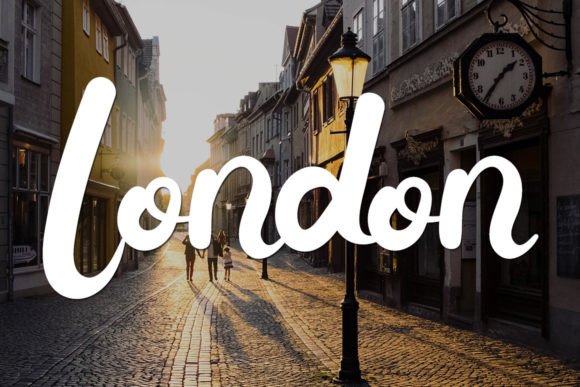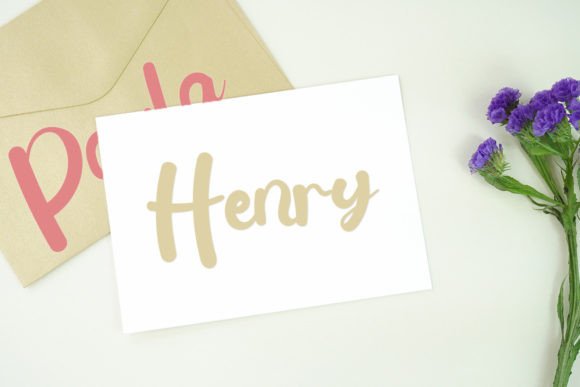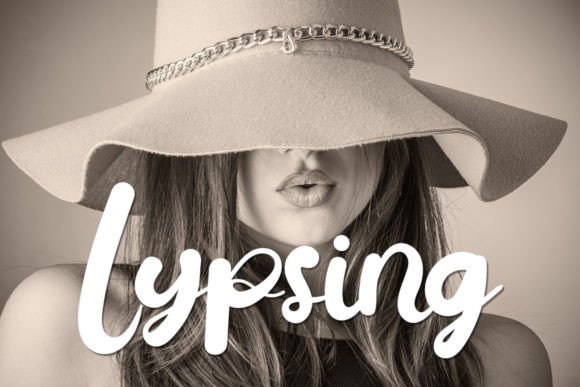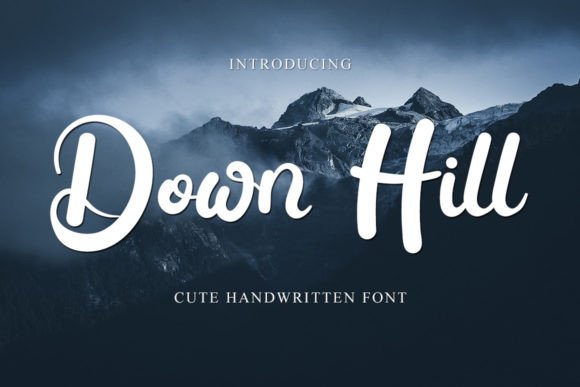
Discover the Charm of Down Hill Font: Elevate Your Designs with Elegance and Joy
Are you on the lookout for a font that embodies freshness, cleanliness, and elegance? Look no further than the Down Hill Font. This beautiful and sweet font is designed to bring a touch of joy and sophistication to your projects, whether they’re formal or informal. In this article, we’ll dive into the characteristics of Down Hill Font, explore its versatility, and discuss how it can elevate your designs to new heights.
The Essence of Down Hill Font
Down Hill Font is a masterpiece of typographic design, crafted to convey a sense of elegance and charm. Its clean lines and fresh appearance make it an ideal choice for designers and crafters seeking to add a touch of sophistication to their work. This font is not just a means of communication; it’s an expression of creativity and style.
One of the standout features of Down Hill Font is its incredible versatility. It can be used in a wide range of projects, from formal documents and presentations to informal designs such as posters, flyers, and social media graphics. Whether you’re working on a professional project or a personal craft, Down Hill Font is sure to make a lasting impression.
Adding a Joyful Touch to Your Designs
What sets Down Hill Font apart from other fonts is its ability to add an incredibly joyful touch to your designs. Its sweet and elegant appearance can instantly elevate the mood of your project, making it more engaging and appealing to your audience. Whether you’re designing for a client or working on a personal project, Down Hill Font is sure to bring a smile to people’s faces.
Down Hill Font is a dream come true for designers and crafters. Its clean and elegant appearance makes it perfect for a wide range of applications, including:
- Logos and branding: Create a lasting impression with a custom logo that exudes elegance and sophistication.
- Posters and flyers: Grab attention with a bold and eye-catching design that showcases your message.
- Social media graphics: Elevate your social media presence with stunning graphics that reflect your brand’s personality.
- Stationery and invitations: Add a touch of elegance to your stationery and invitations with Down Hill Font.
Why Choose Down Hill Font?
With so many fonts available, why choose Down Hill Font? Here are just a few reasons why this font stands out from the rest:
- Unique and distinctive: Down Hill Font is a one-of-a-kind font that will set your designs apart from the crowd.
- Elegant and sophisticated: This font exudes elegance and sophistication, making it perfect for formal and informal projects.
- Fresh and clean: Down Hill Font has a fresh and clean appearance that will make your designs look modern and appealing.
- Easy to read: This font is designed to be easy to read, making it perfect for body text and headings.
In conclusion, Down Hill Font is a beautiful and sweet font that is sure to elevate your designs to new heights. Its fresh, clean, and elegant appearance makes it perfect for a wide range of projects, from formal documents to informal designs. With its incredible versatility and joyful touch, Down Hill Font is a must-have for designers and crafters. So why wait? Download Down Hill Font today and discover the charm of this stunning font for yourself.